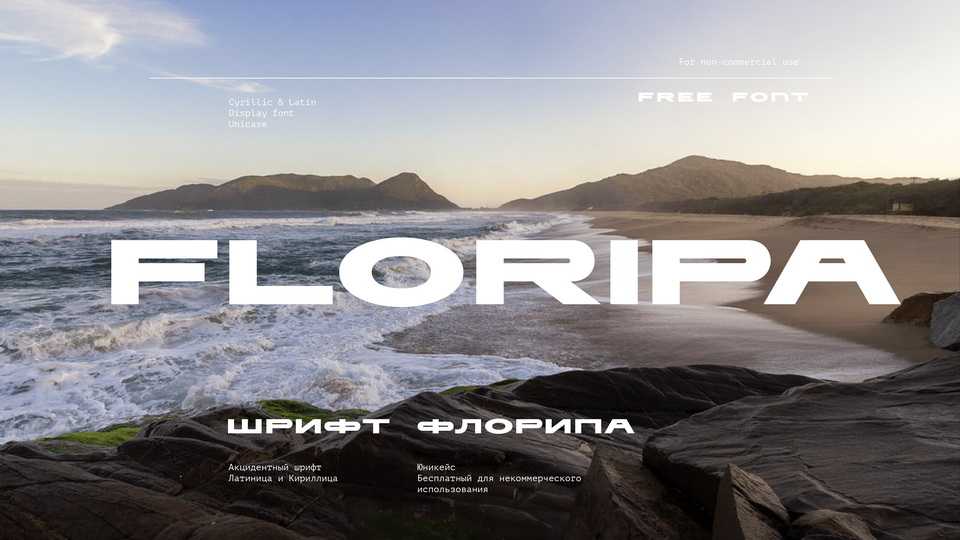
Download Floripa font, an extended all caps sans sans serif typeface with impact and strength. With its bold personality Floripa font is best for logos and headlines.
Designer: Stanislav Chiganov